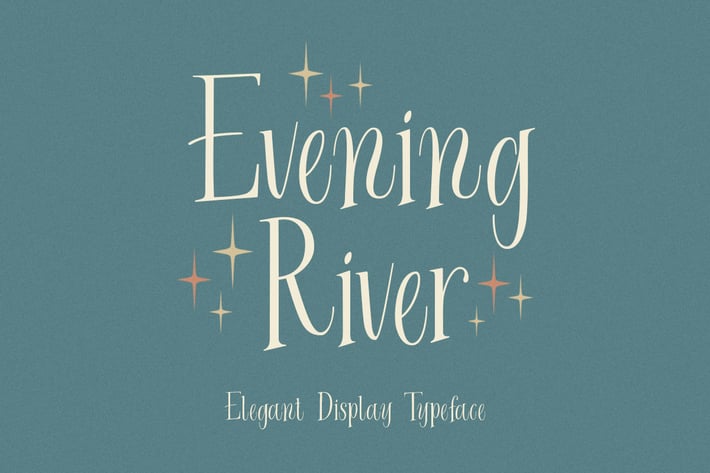
Evening River - Elegant Display Typeface
Introducing, Evening River an elegant display typeface. this font is perfect for headline, packaging, branding, etc.